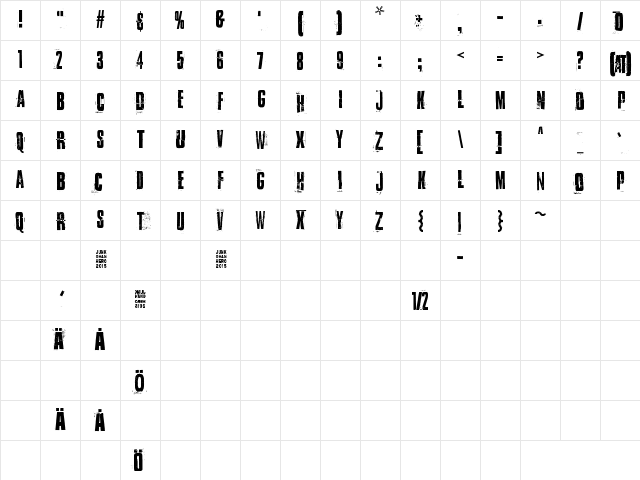
I Did It My Way Regular Free Font
I Did It My Way Regular
Designer: junkohanhero
Design Context for I Did It My Way
I Did It My Way is a composed and adaptable typeface that performs quietly and consistently across a wide range of design contexts.
Pro Tip: Use I Did It My Way in both headline and body roles to test its range before committing to a single application.